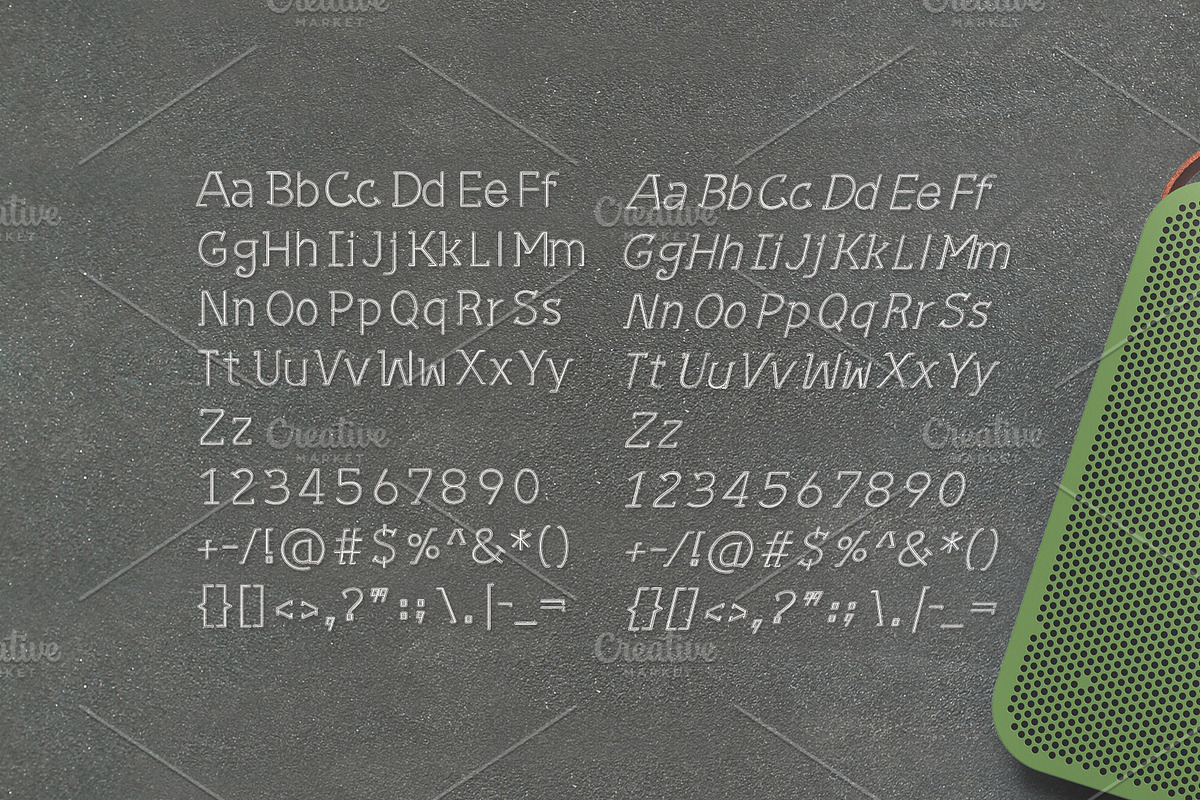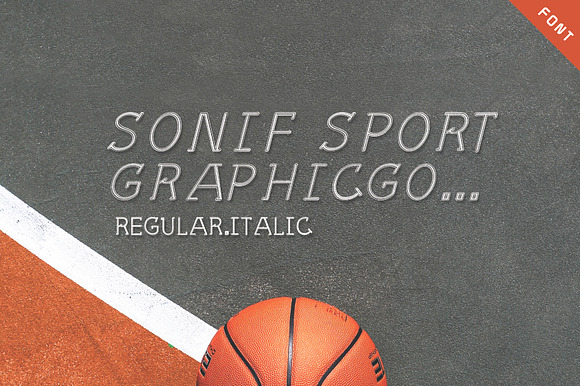
Sonif Sport Font
Sonif Sport Font is double line writing style. It 's perfect for organic products, cards, posters, wall art, branding, diy projects, greeting cards, labels, quotes, packaging, websites and much more.
Uppercase and Lowercase
Sonif Sport Font by Graphicgo fits naturally into Branding, posters, packaging, typography.